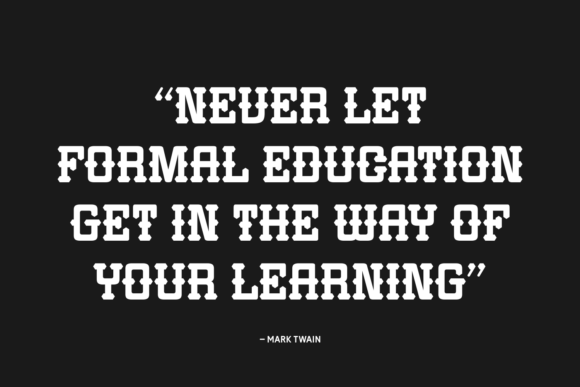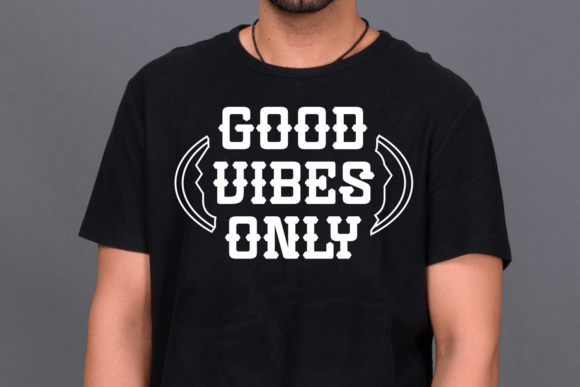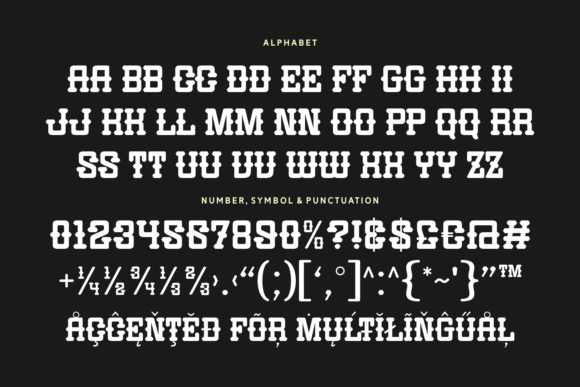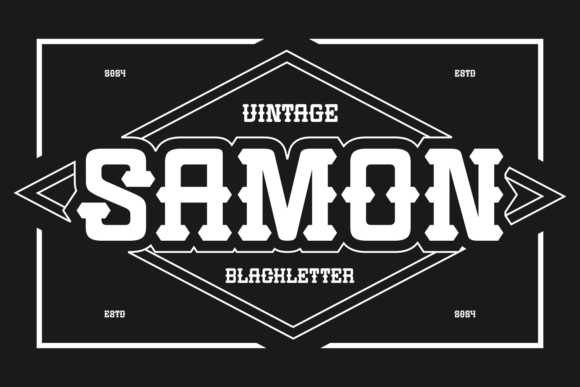
Introduction to Samon Font
A promotional image for β€œSamon,” a vintage blackletter font from the year 2024.
The font’s heavy, blocky, and strong character makes it ideal for creating impactful logos, labels for breweries or apparel, and branding with a rugged, timeless feel .
Key Features of Samon Font
Why Choose Samon Font?